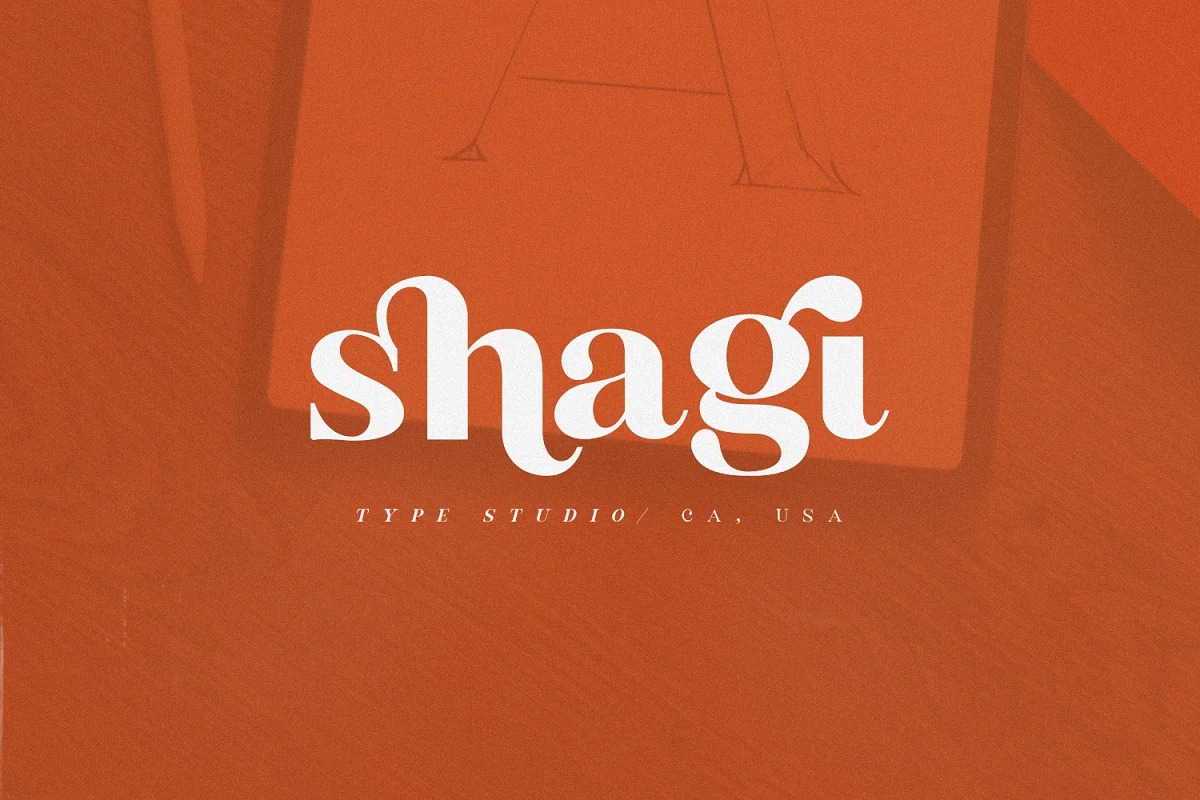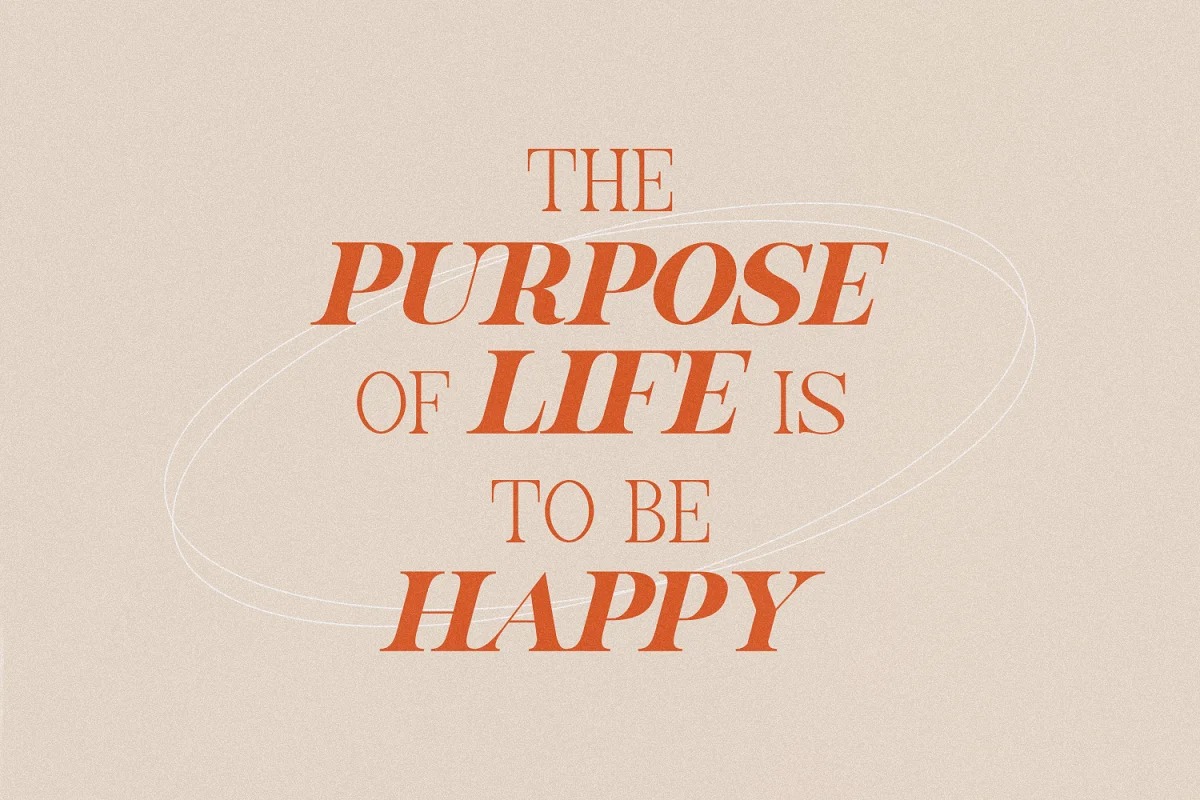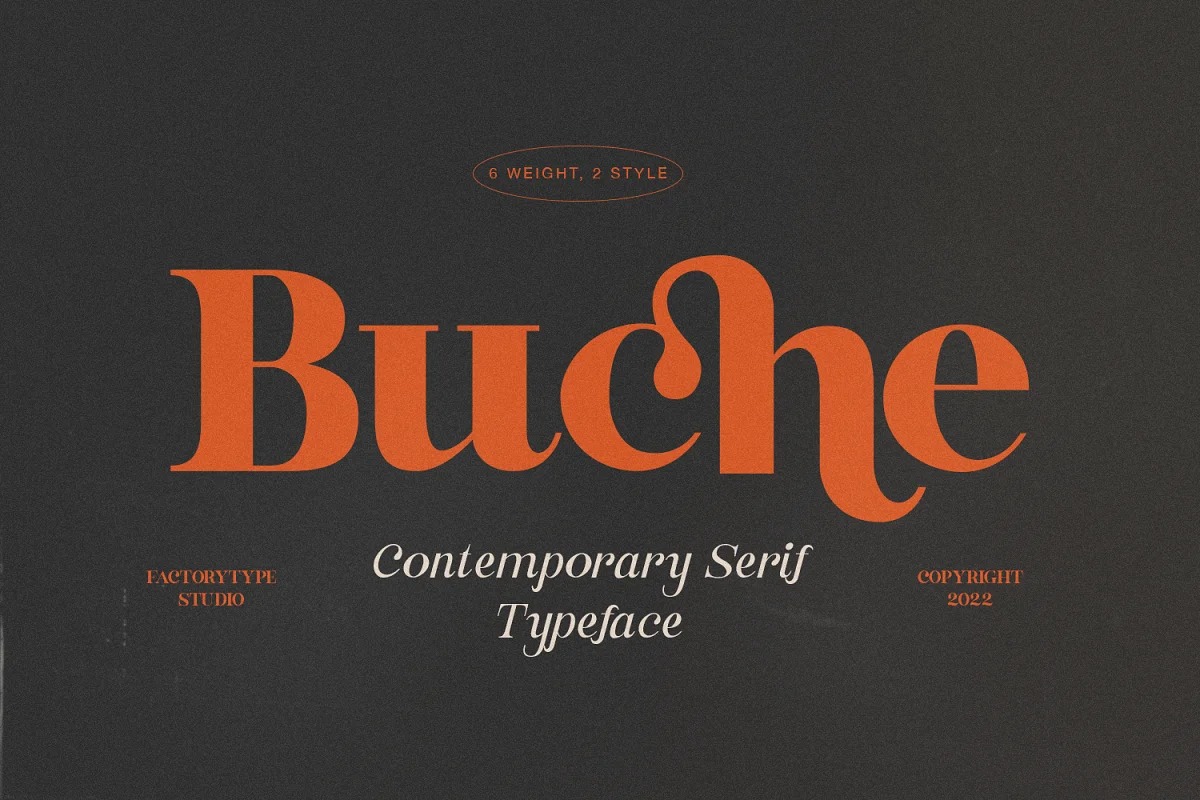
Buche Font
Buche Serif Font
If you’re looking for an elegant serif typeface to attract your audiences or customers then we’ve got the font for you! Buche is a contemporary serif font designed for logo and brand design. It exudes an air of affluence and sophistication, despite its curvy appearance. The ligature fonts will come in handy for whatever your imagination can think up!